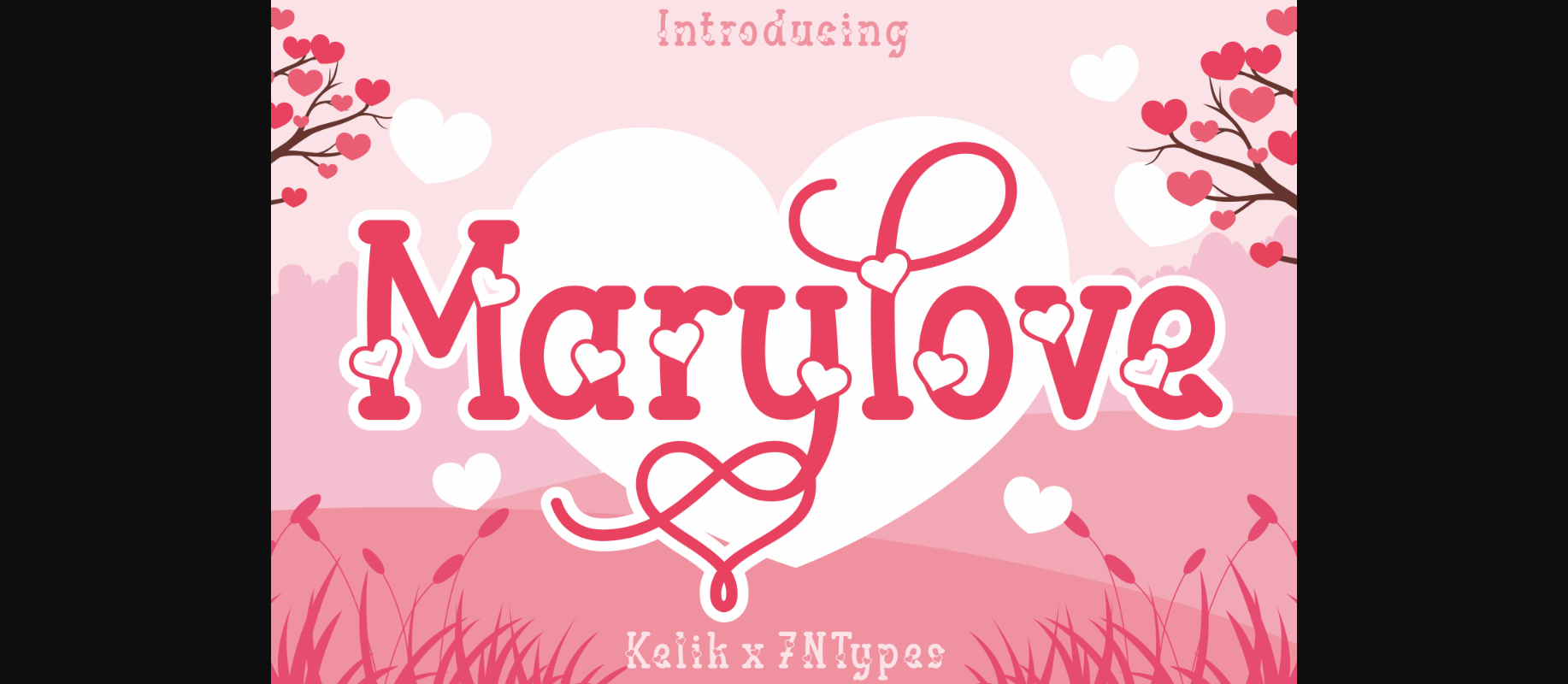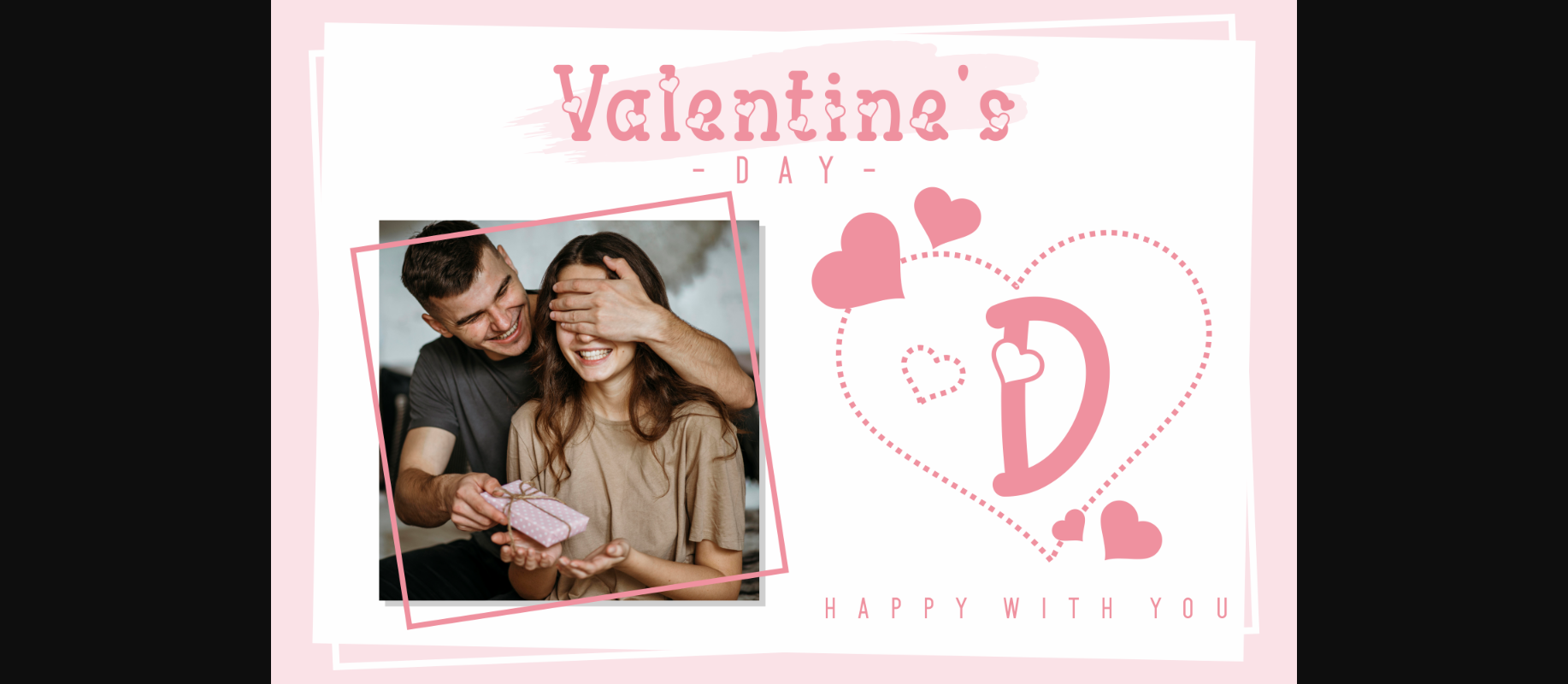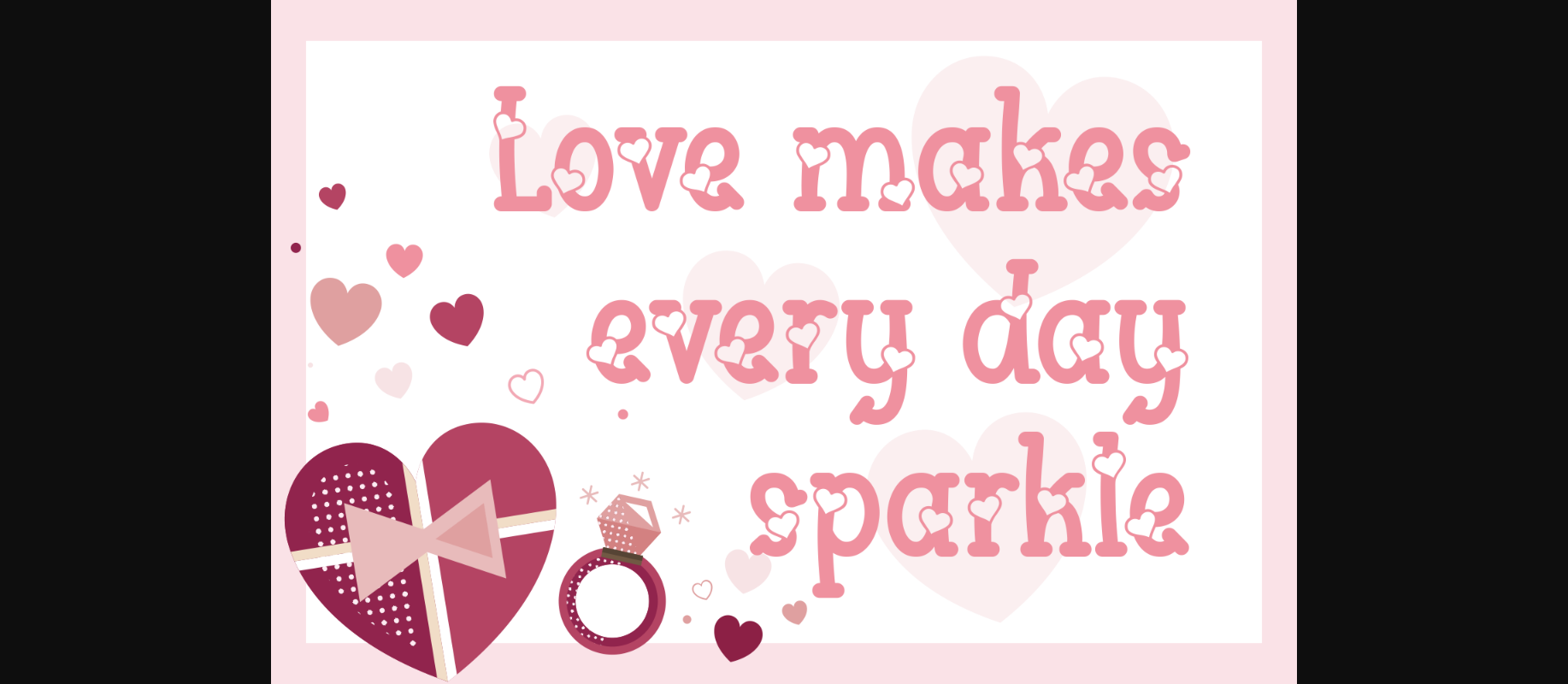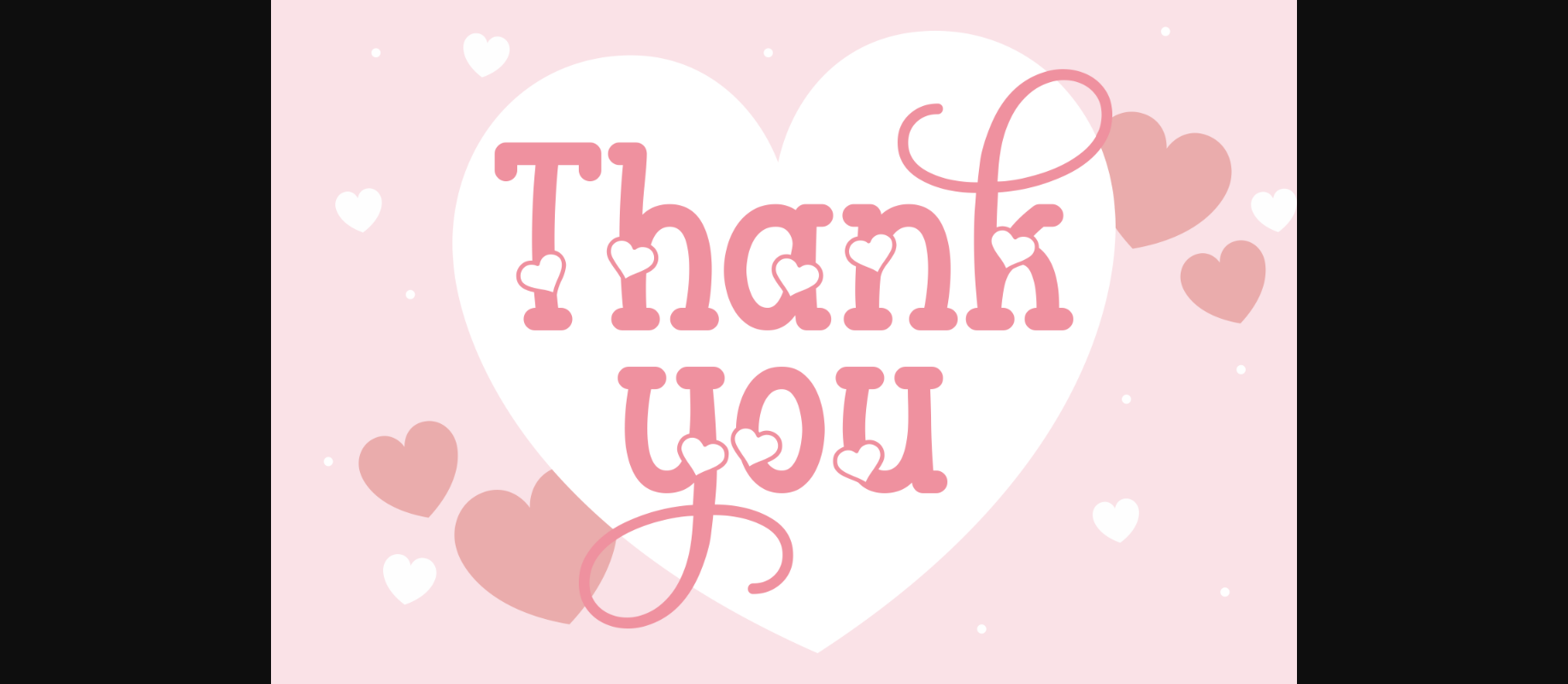
Marylove Font
About Marylove Font
Marylove is a decorative font that uses heart shapes to add a beautiful and cute finishing touch to each character. Fall in love with this font – literally! This font is PUA encoded which means you can access all of the available glyphs and swashes with ease!